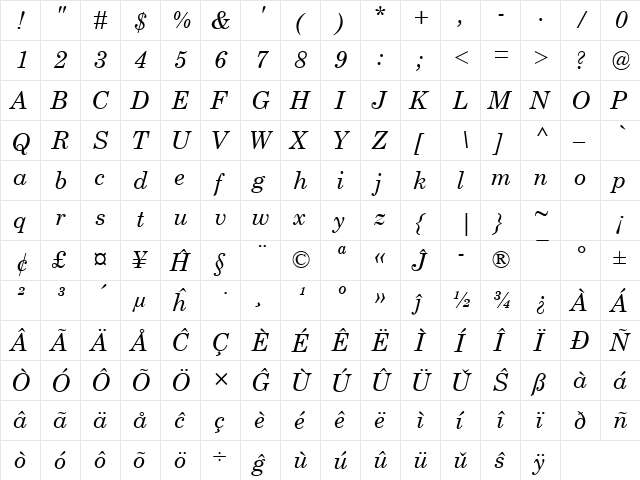
Century Schoolbook Eo Italic
Design Context for Century Schoolbook Eo Typeface
Century Schoolbook Eo takes a measured approach to typography — its balanced proportions and neutral character make it a reliable workhorse for both digital and print work. The slanted form adds forward momentum and visual energy.